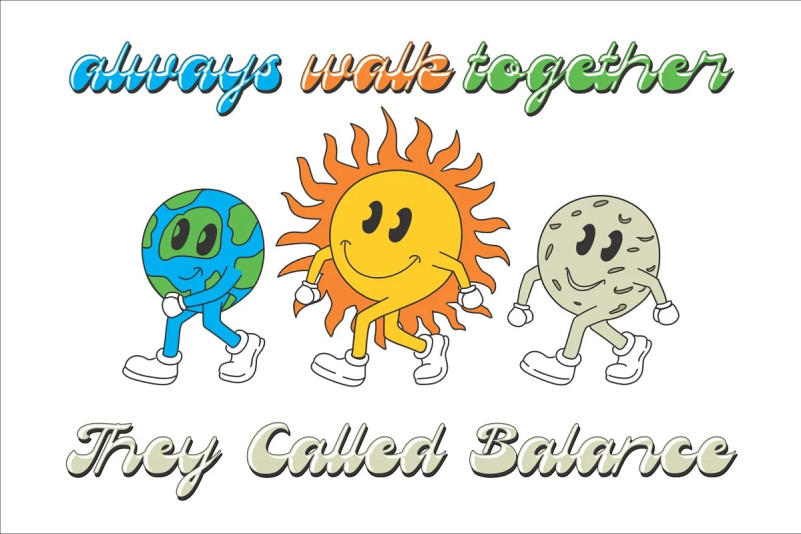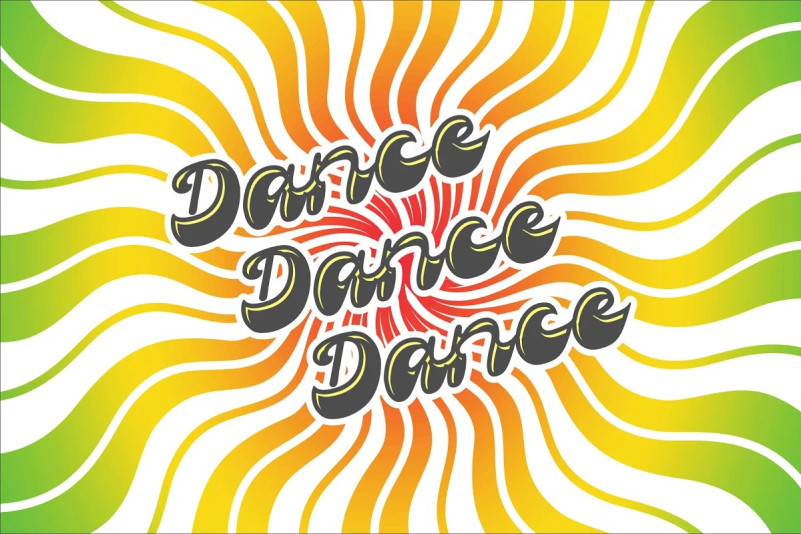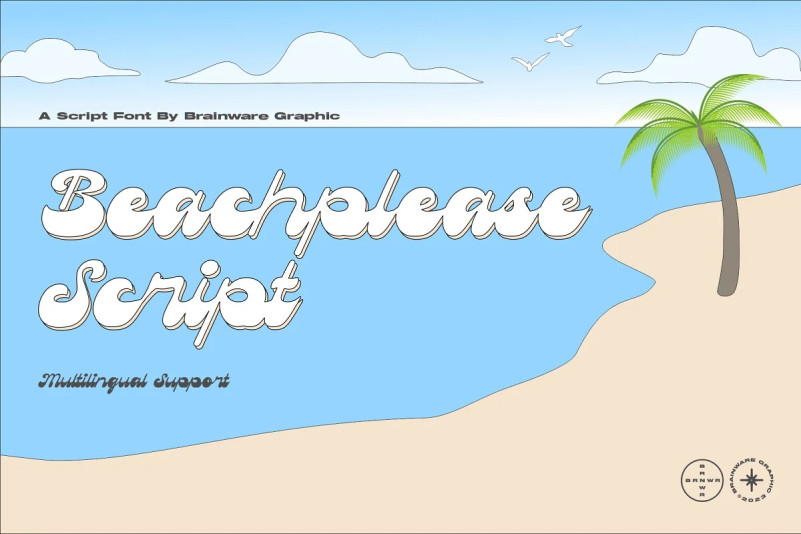
Beachplease Script Font
Beachplease Script Font is A funky display script font, little bit retro psychedelic and groovy. It can easily be matched to an incredibly large set of projects, so add it to your creative ideas and notice how it makes them stand out!